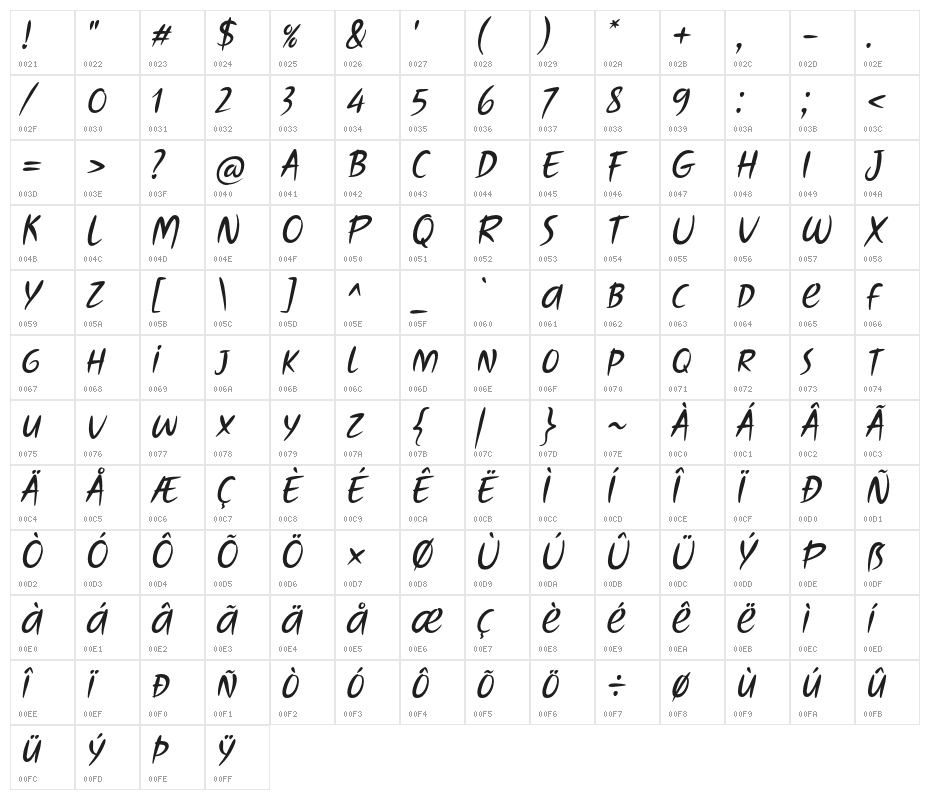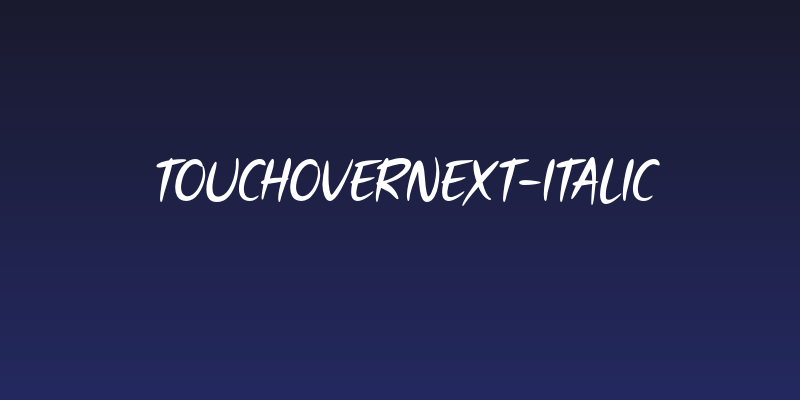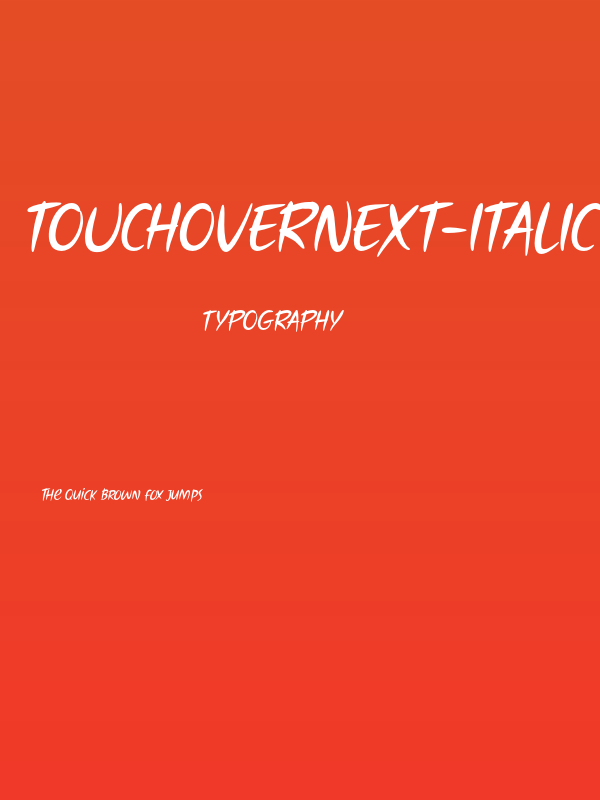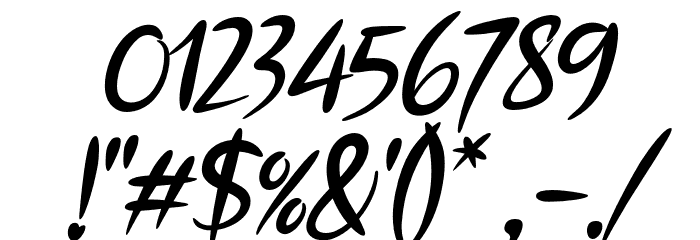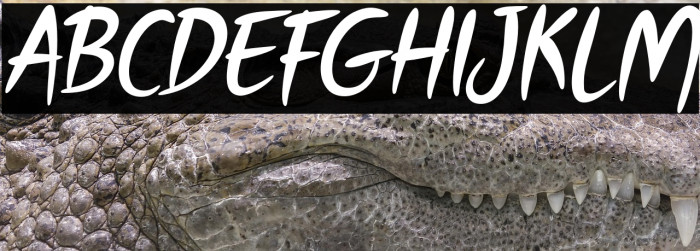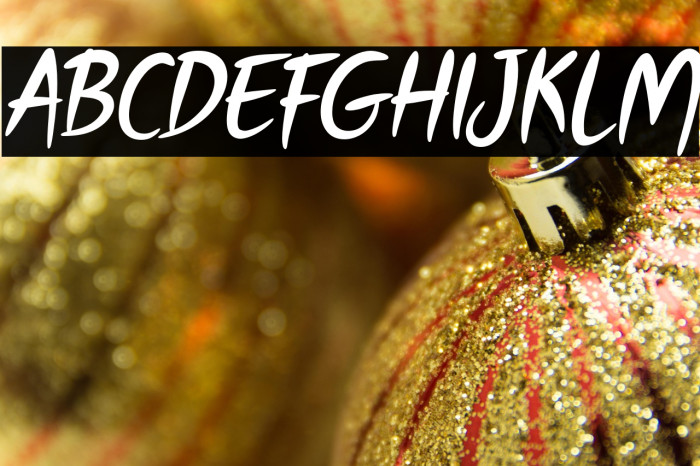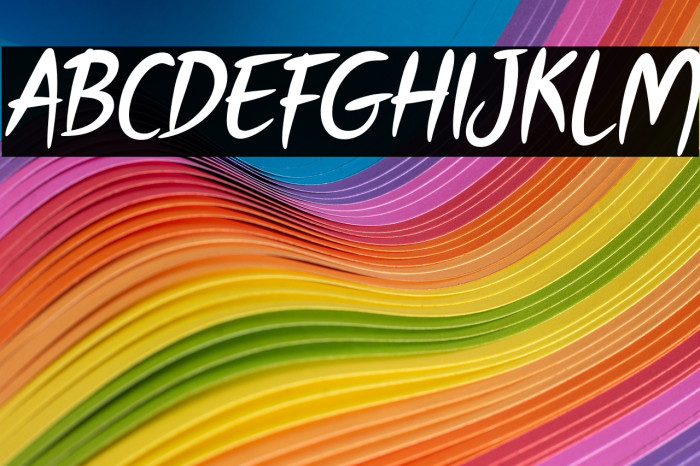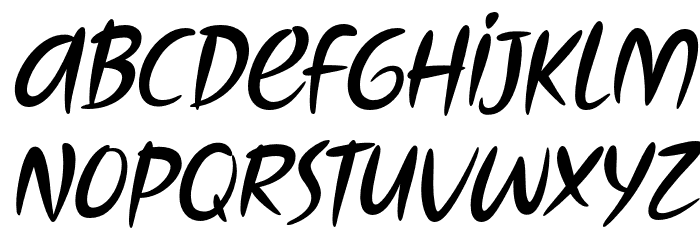
TouchOverNext-Italic Font
TouchOverNext-Italic Description
This font exhibits a dynamic and energetic style with a handwritten appearance. The letters are slanted, giving it an italicized look, which adds a sense of motion and fluidity. The strokes are bold and confident, with a slight variation in thickness that adds character without compromising readability. The uppercase and lowercase letters maintain a consistent style, while the numerals and special characters blend seamlessly with the overall design. This font is ideal for projects that require a personal touch or an informal yet stylish presentation.
| Proposed Projects | Ideal for branding, posters, invitations, and social media graphics. |